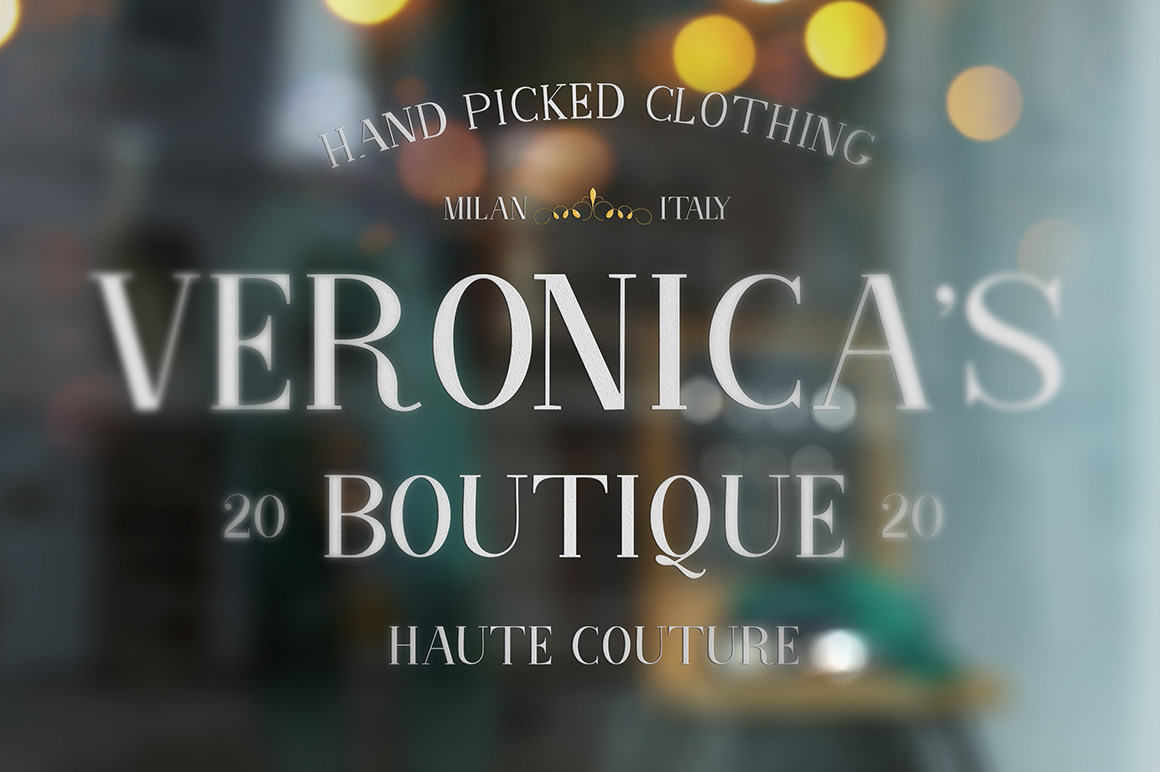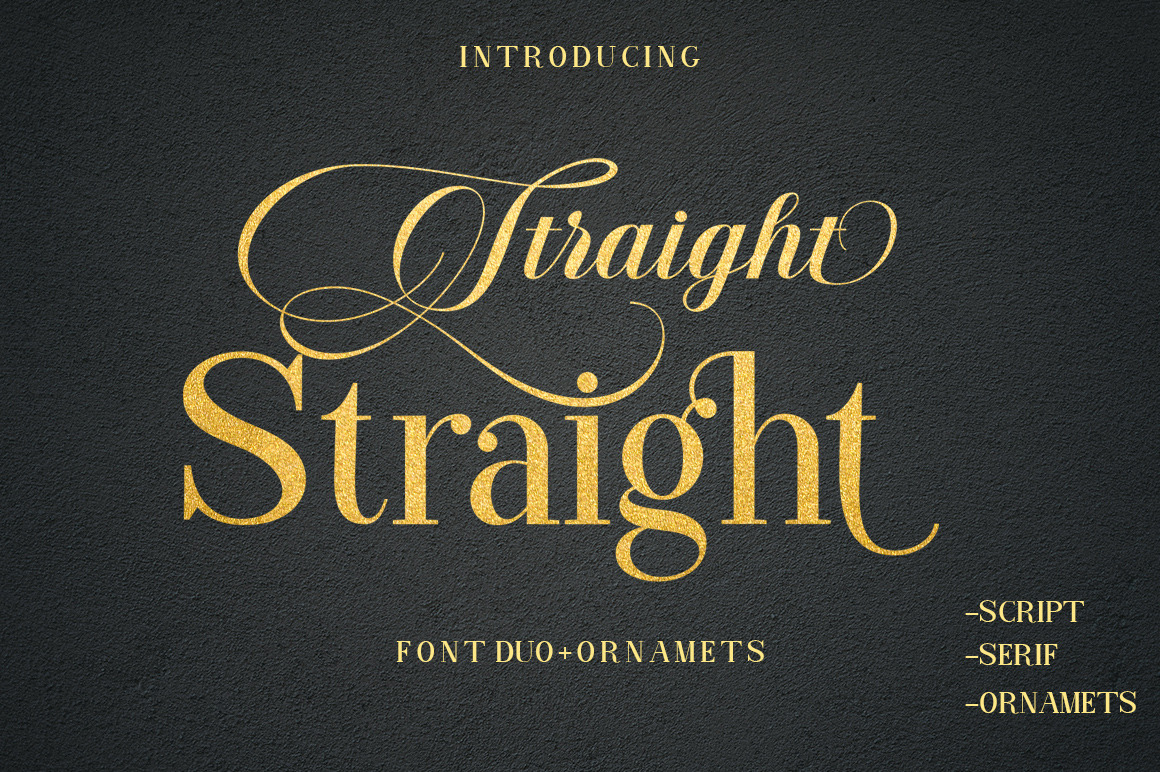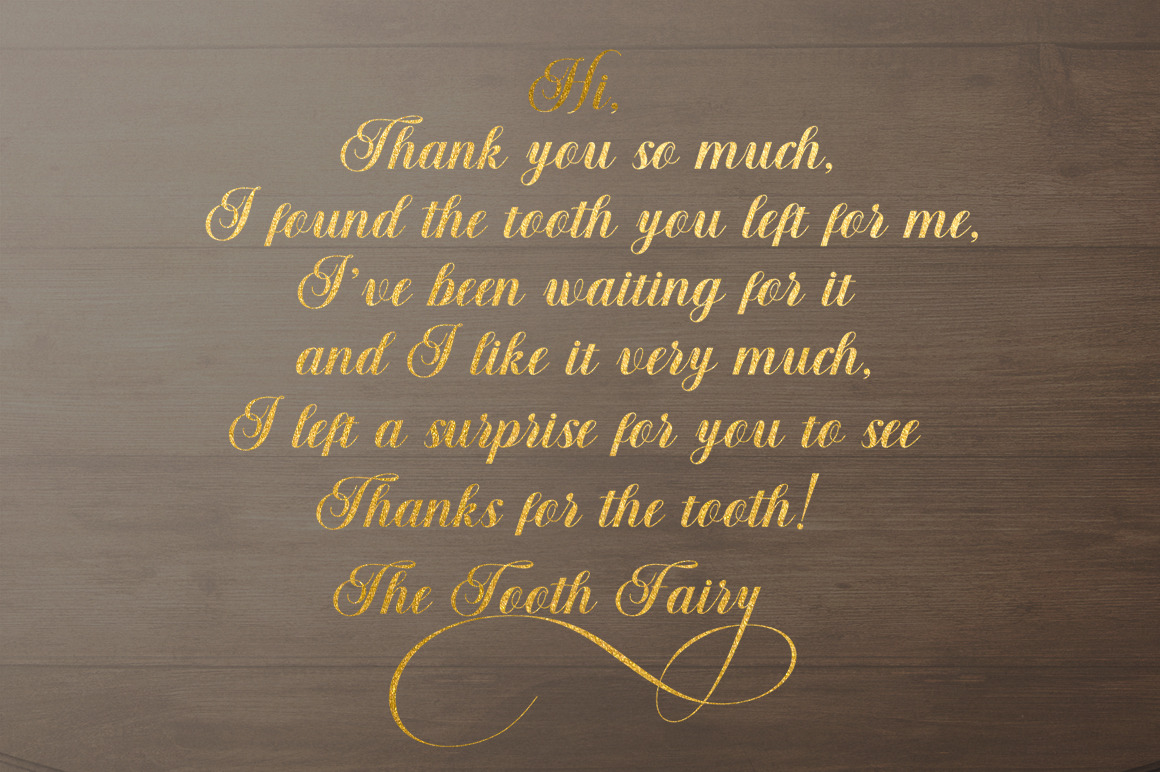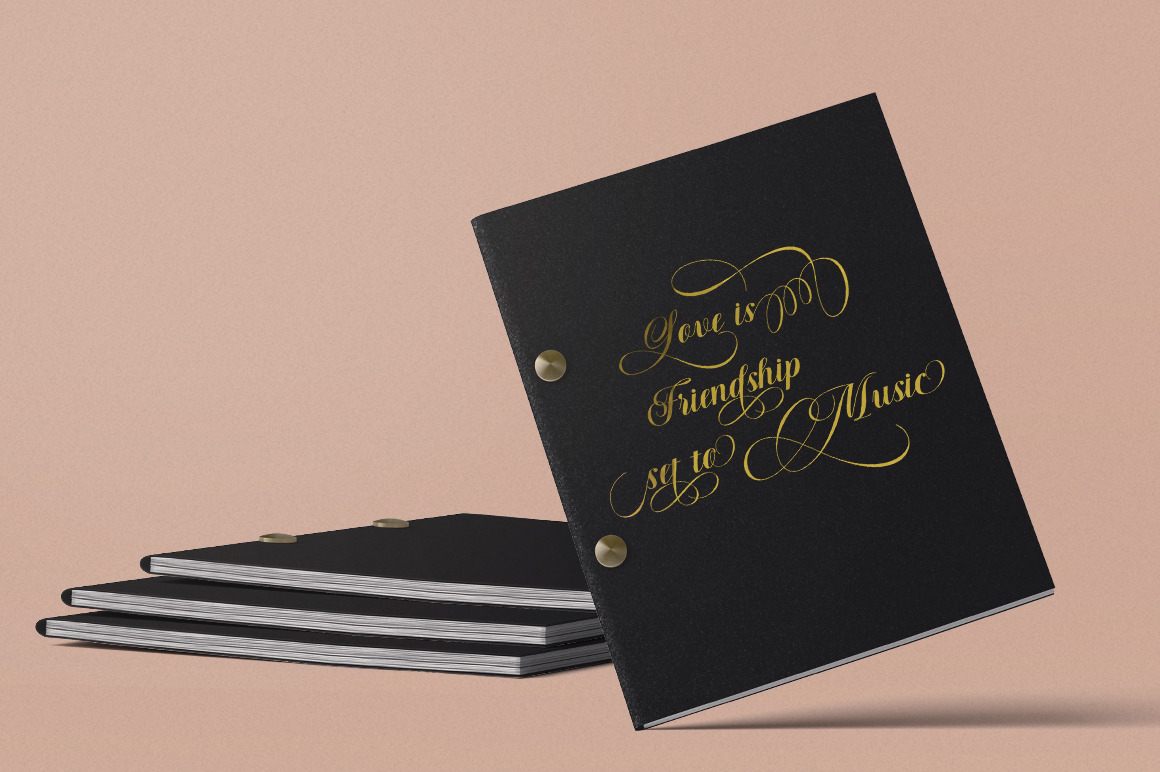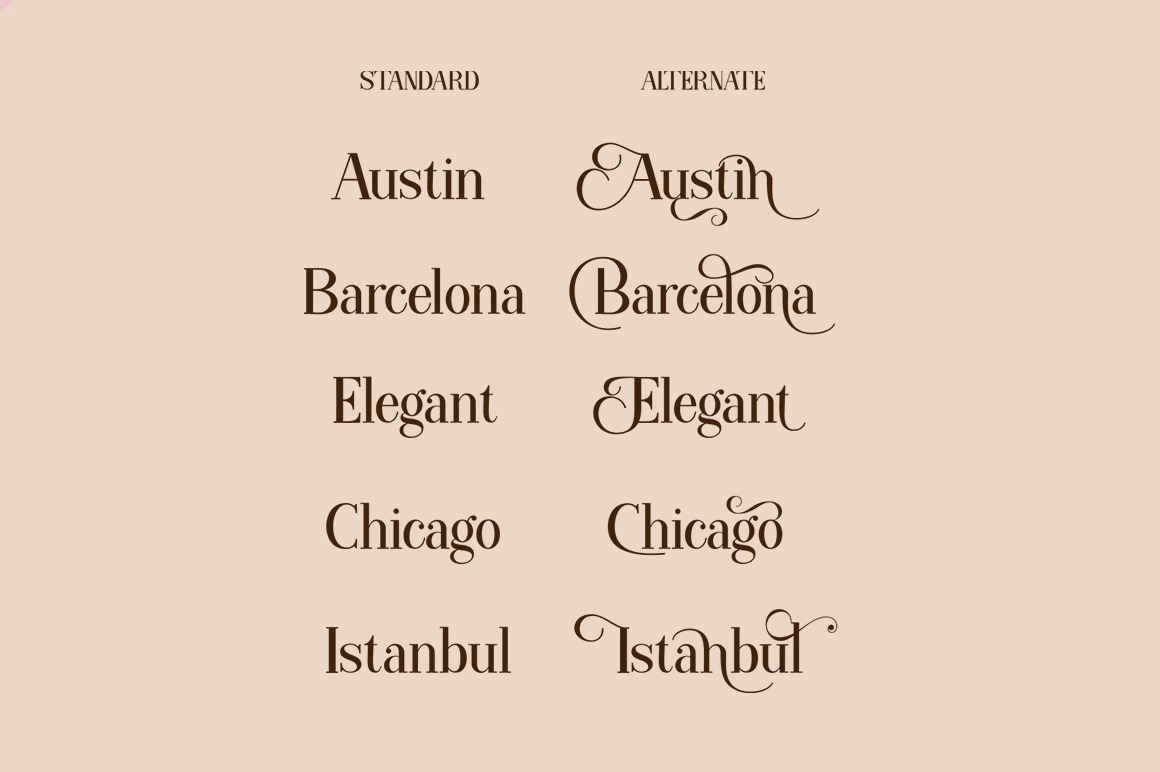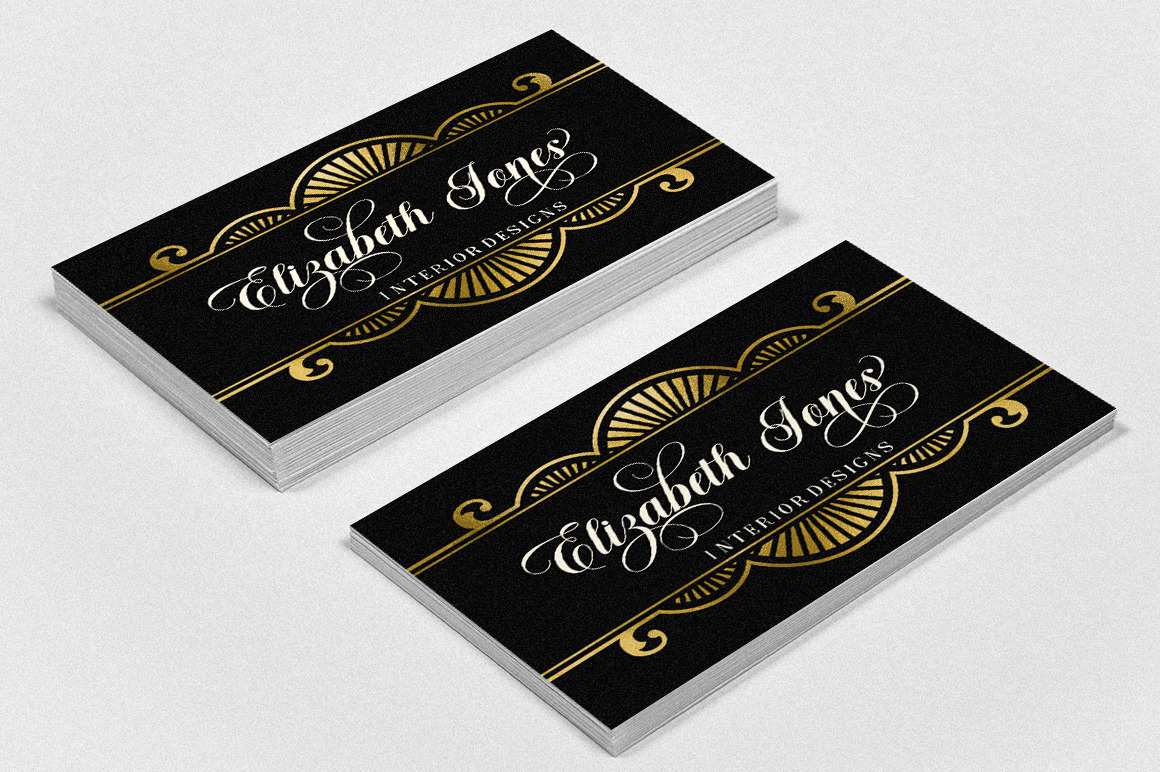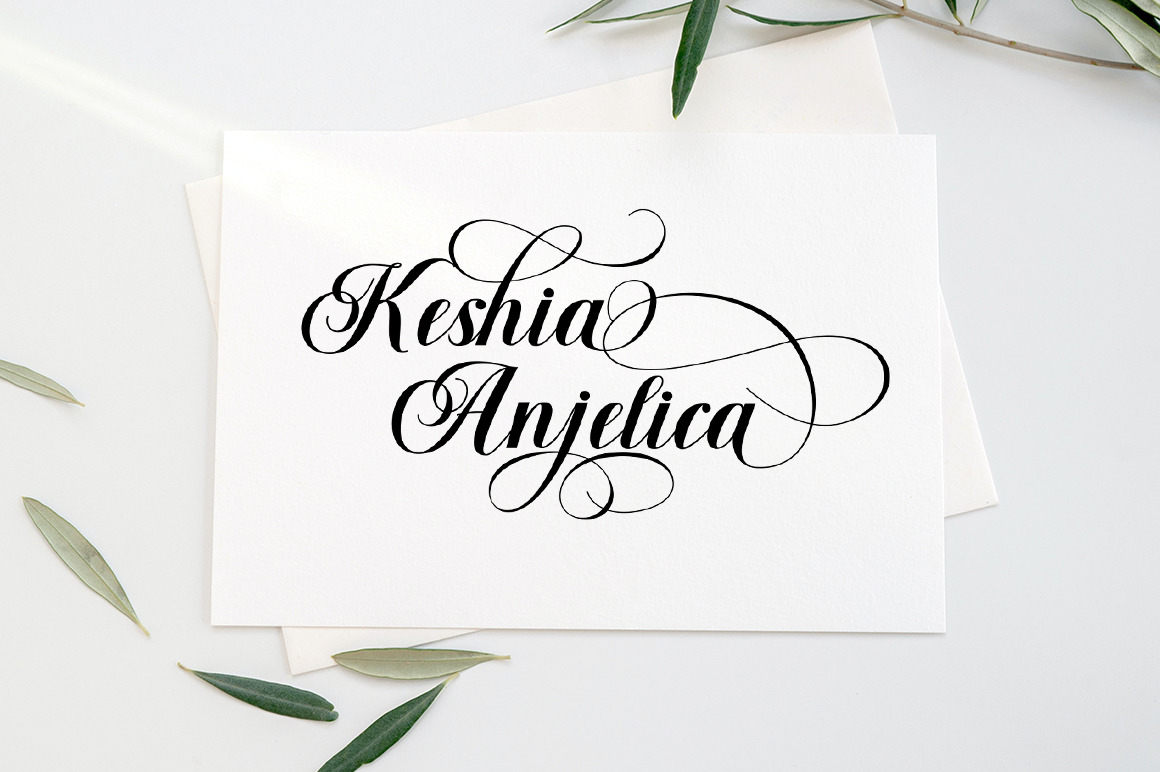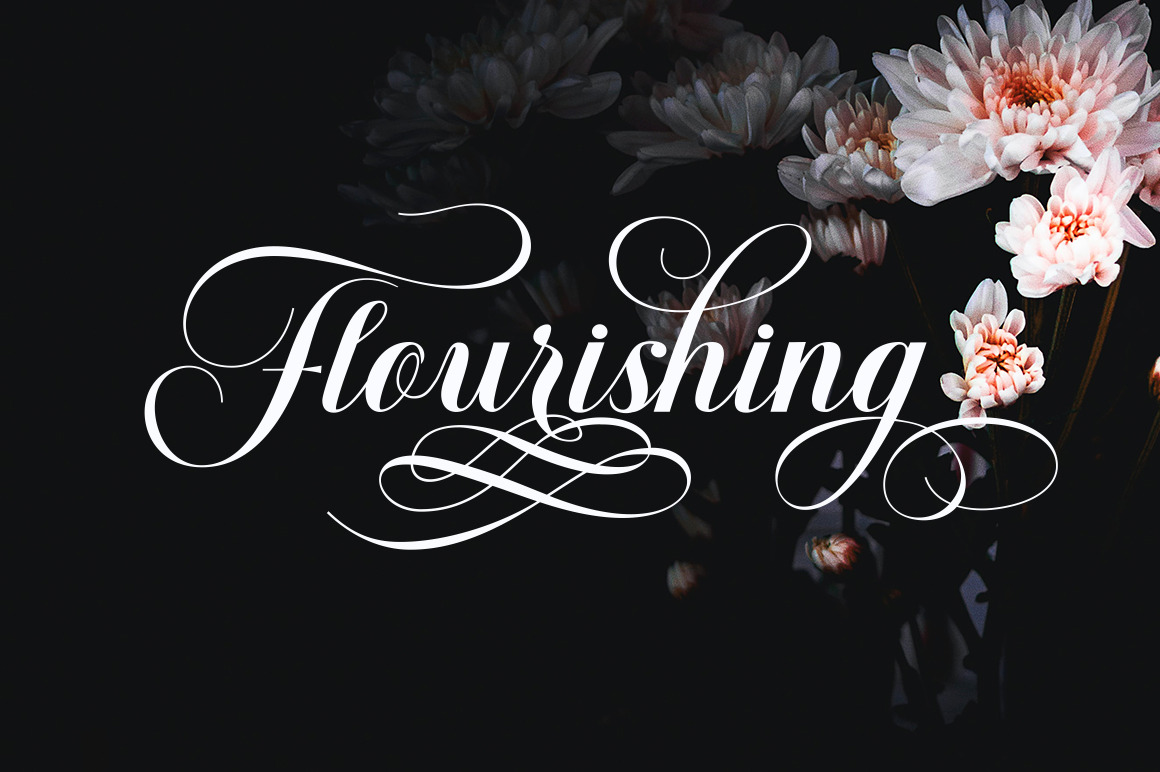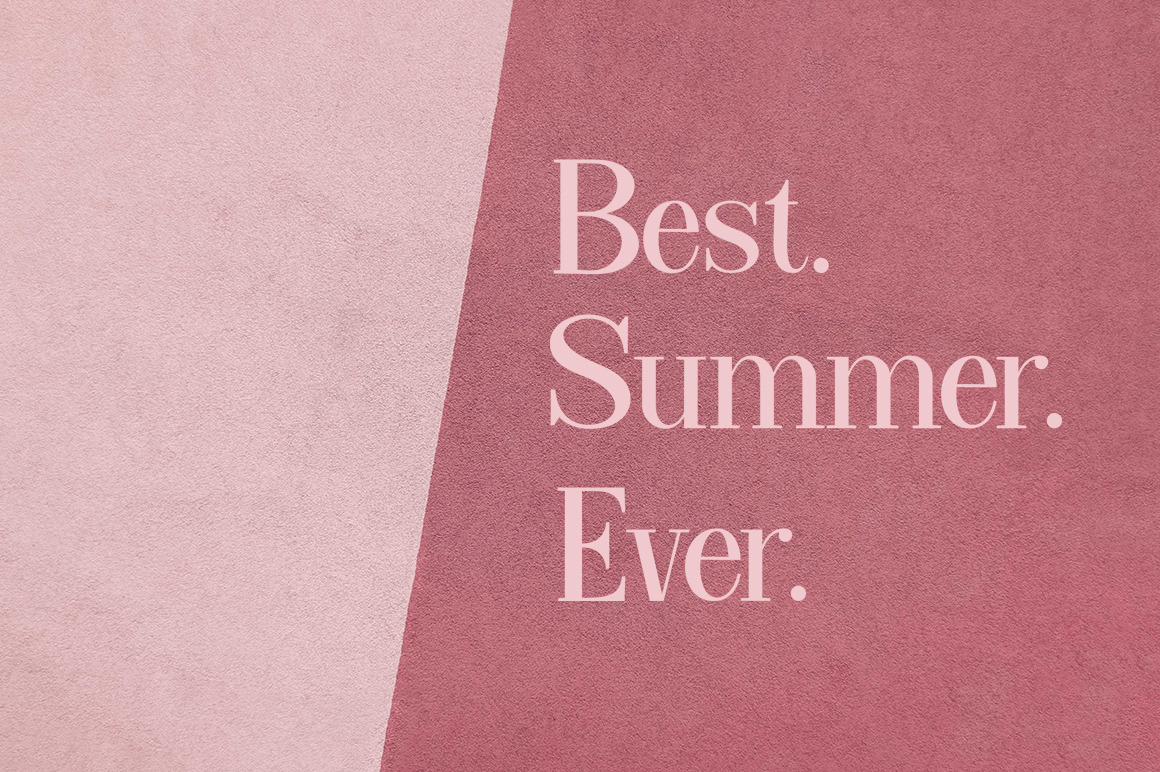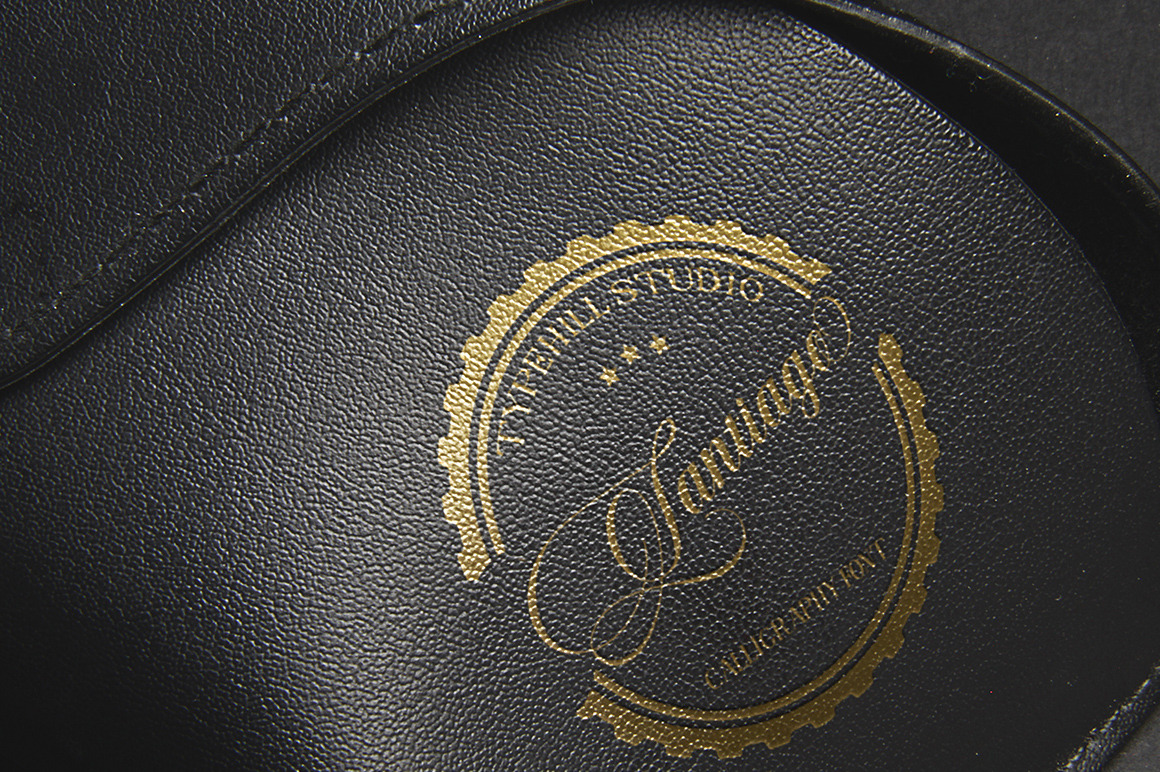
Straight Font Duo + Ornaments a calligraphy script font that comes with beautiful alternative characters. a mixture of copper calligraphy with handleting style. Designed to bring style elegance. Straight attracts such a subtle, clean, feminine, sensual, glamorous, simple and very readable typeface. The classic style is perfect to apply in various formal forms such as invitations, labels, menus, Logos, fashion, make up, stationery, letterpress, romantic novels, magazines, books, greeting / wedding cards, packaging, labels. Straight Script including multiple language support. With OpenType features with stylish alternatives, ligatures and characters, allowing you to mix and match pairs of letters to fit your design, as well as a touch of ornament to make this font look elegant. Straight also has a strong neoclassical serif typeface with high contrast, cool, unique style and appearance with alternative fonts, Ligature, and multilingual support. Files include: -Straight Script (OTF, TTF) -Straight Serif (OTF, TTF) -Straight Ornaments (OTF, TTF) Thank you for your visit. | Straight Font Duo + Ornament | Typehill